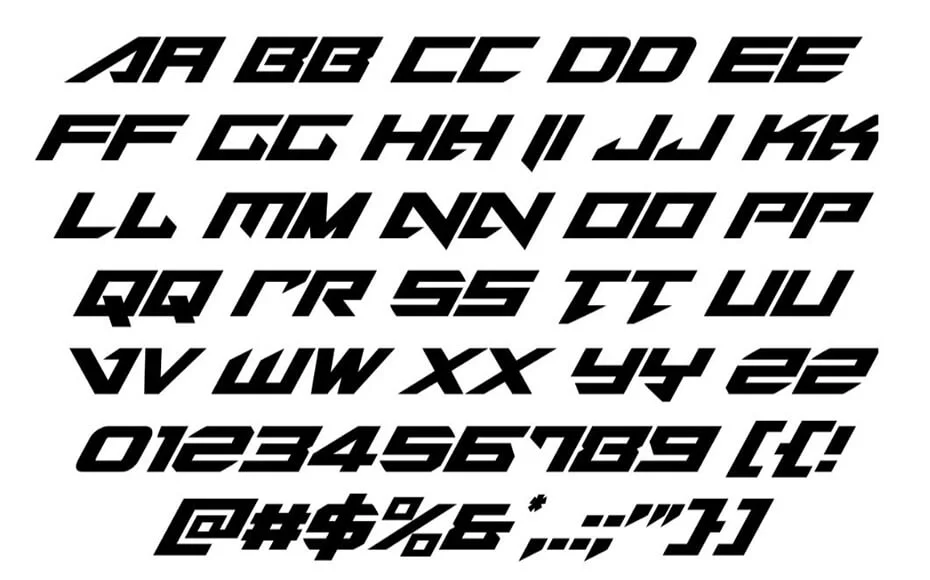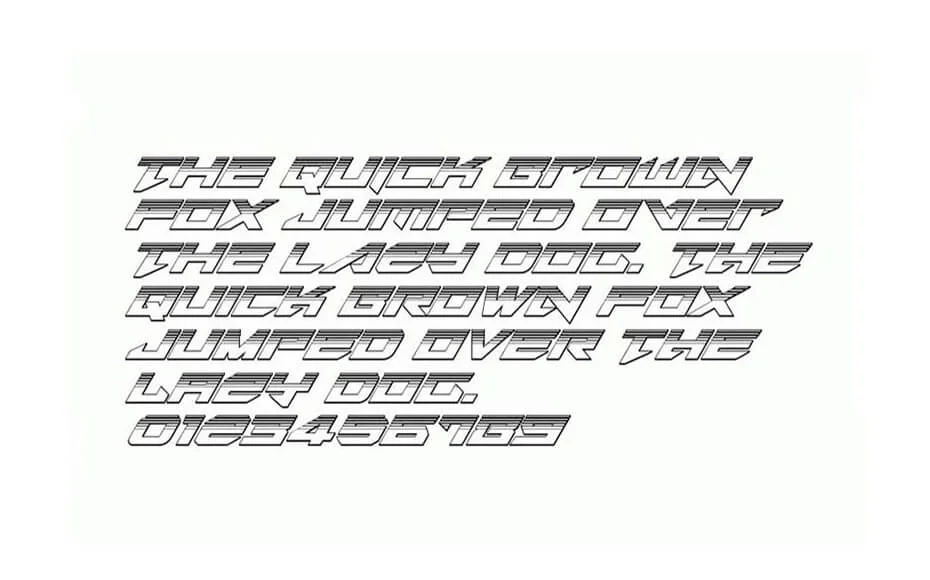
Check out Tarrget Font. A terrific typeface that combines elements of sci-fi with a techno vibe. This eye-catching display font is a great choice for titles and all your techno merchandise.
Daniel Zadorozny took the charge of designing it via his type foundry the Iconian Fonts in 2013. This futuristic font has represented 25 unique styles.
This awesome typeface is based on the Takken Tag tournament logo. It was a fighting video game that is famous all over the world.
That’s why this beautiful font has ninja-like sharp corners and a solid look. Those shapes make it perfect for racing designs or fighting project designs.
Due to its unique and stylish structure, it can be easily adjusted for display tasks in large projects.
With this modern font help, you can create book covers, logo designs, posters, unique emblems, printing on cards, special quotes, flyers, game graphics, product designs, banner ads, as well as many other things.
As a sweet pack, this typeface contained 25 unique styles. That includes Regular, Italic, Condensed, Condensed Italic, Expanded, Expanded Italic, Outline, Outline Italic, 3D, and 3D Italic.
Also Gradient, Gradient Italic, Laser, Laser Italic, Chrome, Chrome Italic, Half-Tone, Half-Tone Italic, Platinum, Platinum Italic, Academy, Academy Italic, Engraved, Engraved Italic, and Leftalic.